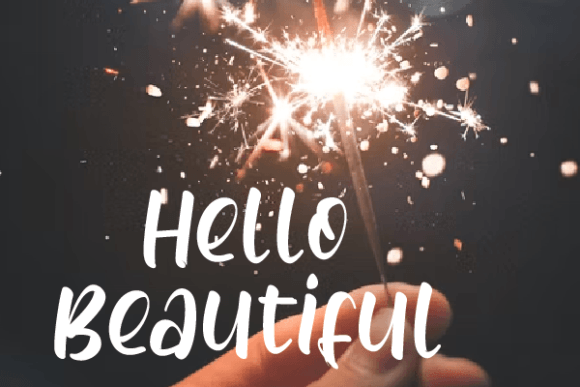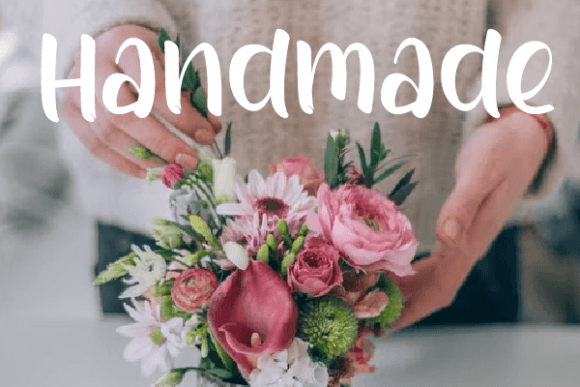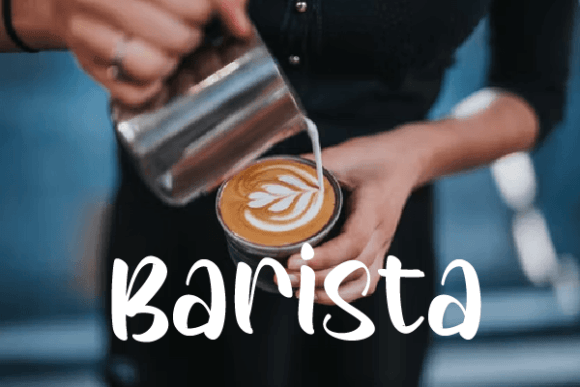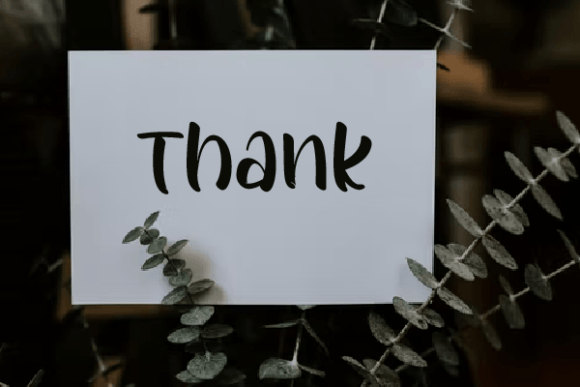
Introduction to Finley Emery Font
Finley Emery’s latest style letters are perfect for wall displays, wedding invitations, social media post logos, advertisements, product packaging, product designs, labels, photography, watermarks, invitations, stationery, and any project that requires a handwritten taste.
Key Features of Finley Emery Font
Why Choose Finley Emery Font?
Finley Emery Font offers exceptional quality and versatility, making it a valuable addition to your design toolkit. Whether you’re creating for personal projects or commercial use, Finley Emery Font delivers professional results.